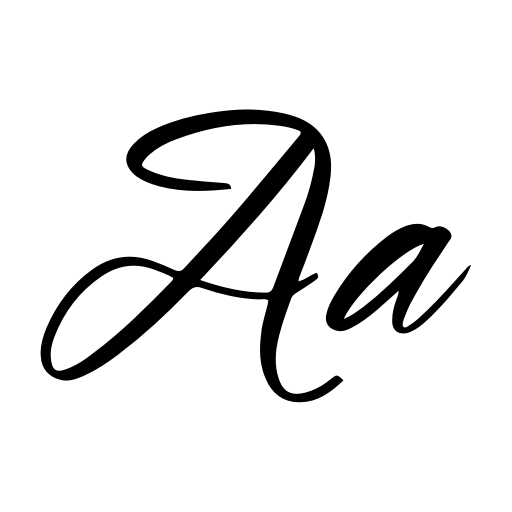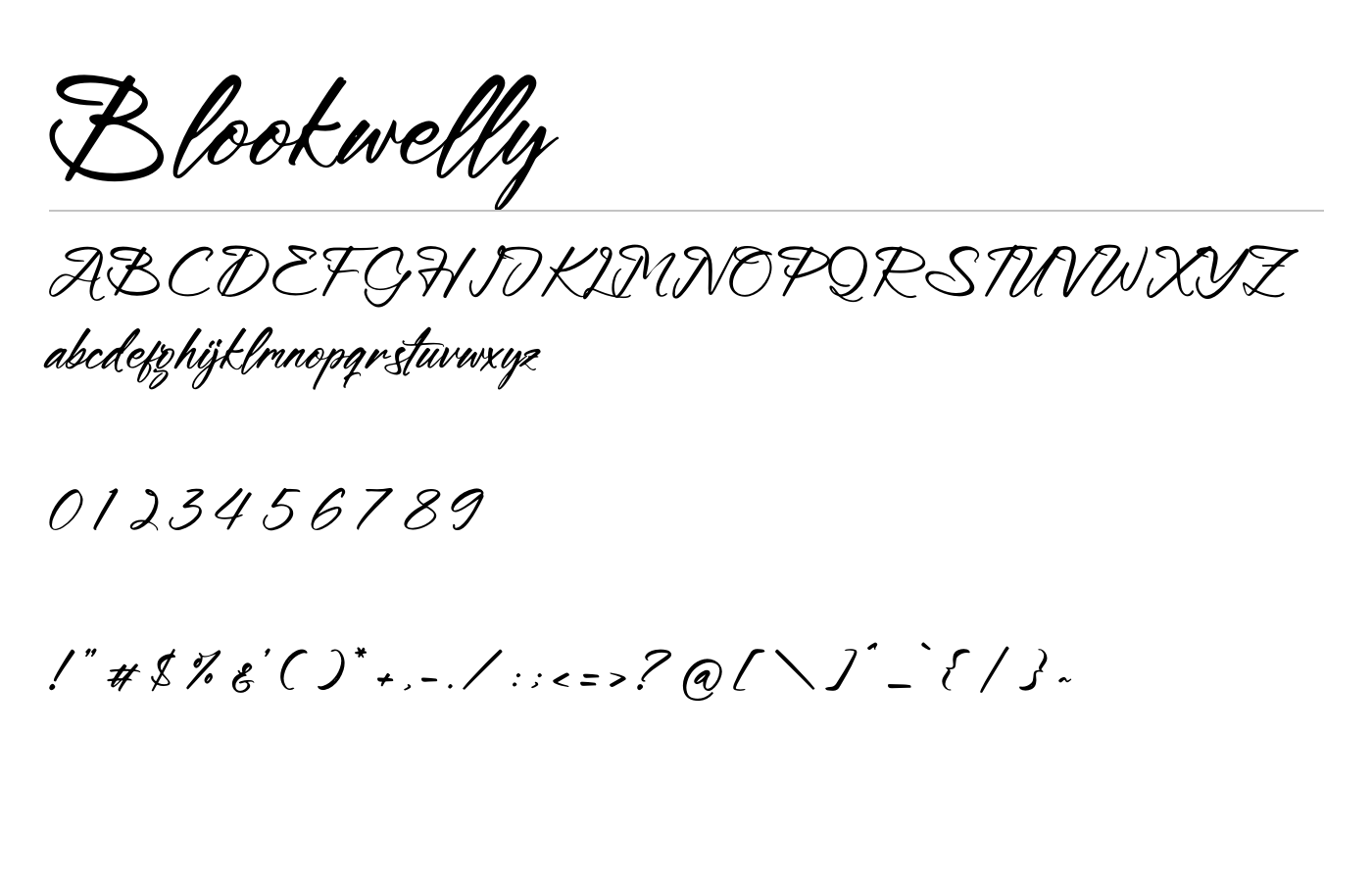
Blookwelly is an elegant script font characterized by its fluid, handwritten style with a lively rhythm and delicate strokes. Its slender, slightly condensed letterforms with smooth curves give it a personal and sophisticated feel, making it ideal for invitations, branding, and decorative headlines where a touch of refinement and charm is desired. This font works beautifully in projects that aim to convey creativity and elegance with a modern yet timeless appeal.
Blookwelly Font
About Blookwelly Font